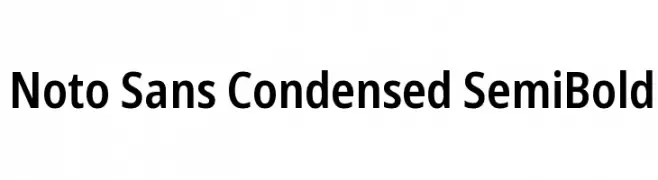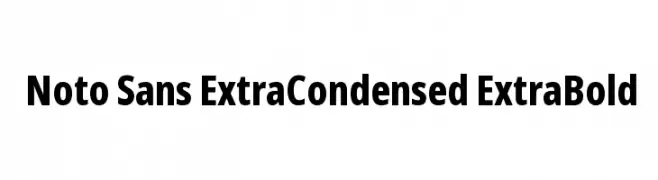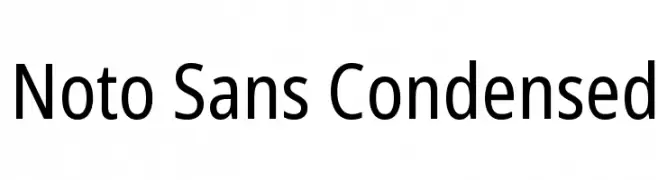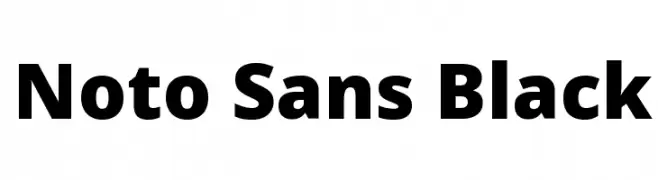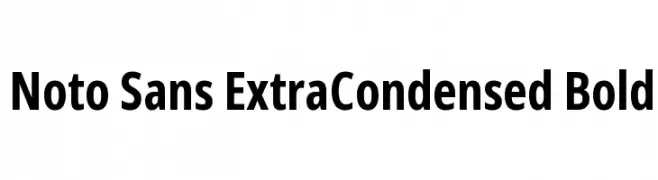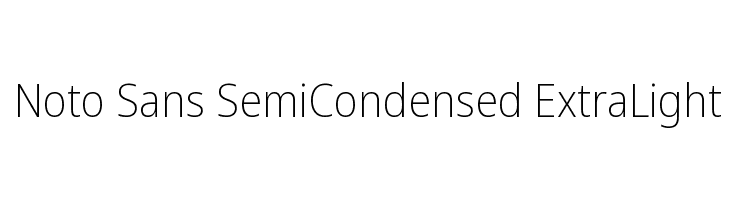
A modern, extra bold, semi-condensed sans-serif typeface with excellent readability.
A modern, semi-bold, condensed sans-serif font with excellent readability.
A modern, semi-condensed sans-serif font with excellent readability.
A modern, extra light sans-serif font with a semi-condensed width.
A bold, semi-condensed sans-serif font with high contrast and tight spacing.
A bold, extra condensed sans-serif typeface with a modern, clean design.
A modern, thin, semi-condensed sans-serif font with clean lines.
A clean, modern sans-serif font with a condensed width and uniform stroke width.
A bold, modern sans-serif font with clean lines and strong presence.
A modern, bold, extra condensed sans-serif font with clear, uniform strokes.